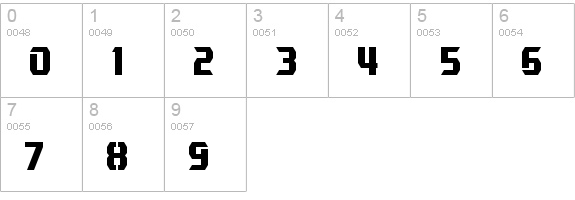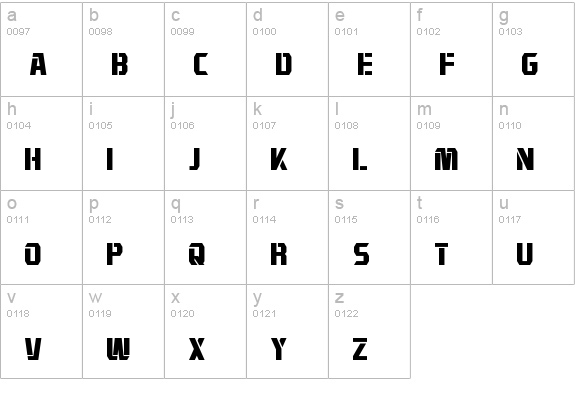
Combatron Font Details
Introducing Combatron, a bold and commanding font that exudes strength and power. With its sharp edges and dynamic letterforms, Combatron is the perfect choice for any design project that requires a touch of fierceness. This font is designed to make a statement. The bold strokes and angular shapes of Combatron demand attention and convey a sense of confidence and determination. Whether used for headlines, logos, or titles, Combatron will make your message stand out from the crowd. But what sets Combatron apart from other fonts is that it is not only visually striking, but also freely available to download. That's right, you can now have this incredible font at your fingertips without spending a dime. Simply head over to FontsMarket.com and grab your copy of Combatron today. With Combatron, you can unleash your creativity without any limitations. Whether you're designing a poster, a website, or a branding project, this font will elevate your work to new heights. Its versatility allows it to adapt to various styles and themes, making it a go-to choice for designers of all levels. So why wait? Don't miss out on the opportunity to enhance your designs with the bold and captivating presence of Combatron. Download it for free at FontsMarket.com and let your creativity soar.